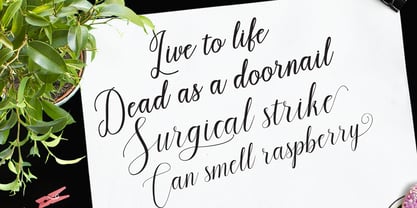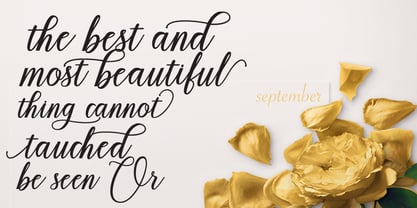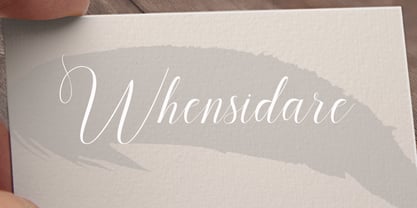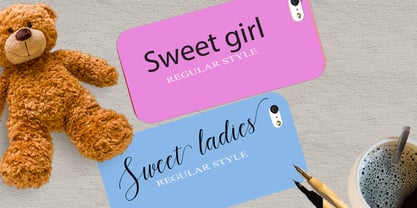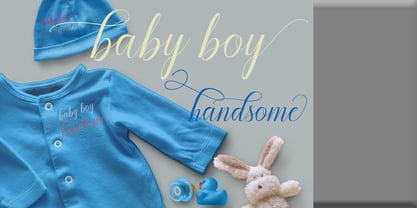
Whensidare
von Josstype
Die Schriftfamilie Whensidare wurde von Teuku Zulfikar entworfen und von Josstype veröffentlicht. Whensidare enthält 2 Stile und Familienpaketoptionen. Mehr über diese Familie
Whensidare Script is a handwritten typeface with classic root. a beautiful formal script and elegant touch. It works perfect in the world of weddings, logos, greeting cards, branding, print ads, quotes, signage, magazines etc. Whenesday script features 468 + glyphs and 248 alternate characters. including initial and terminal letters, alternates, swashes, ligatures and multiple language support. Whensidare. There is also a choice of bold and regular letter shapes.
Designer: Teuku Zulfikar
Foundry: Josstype